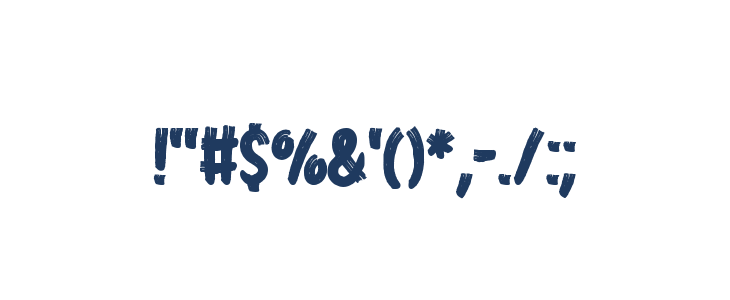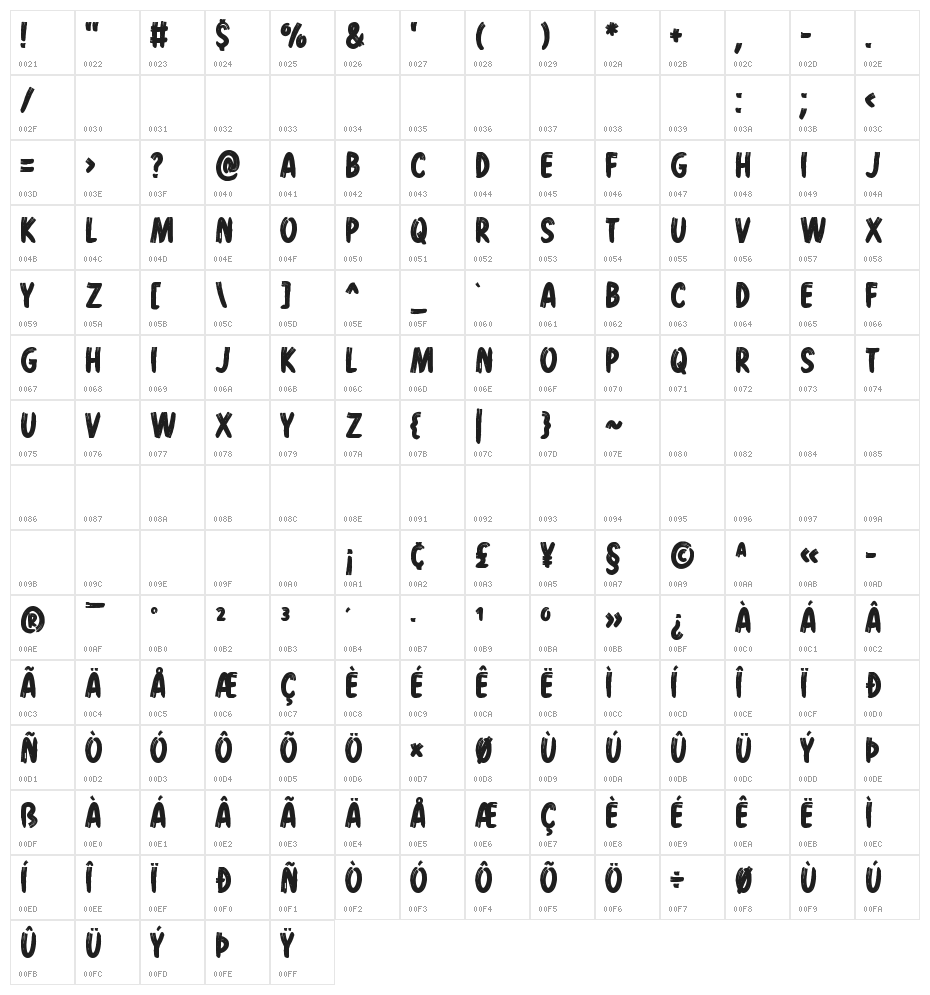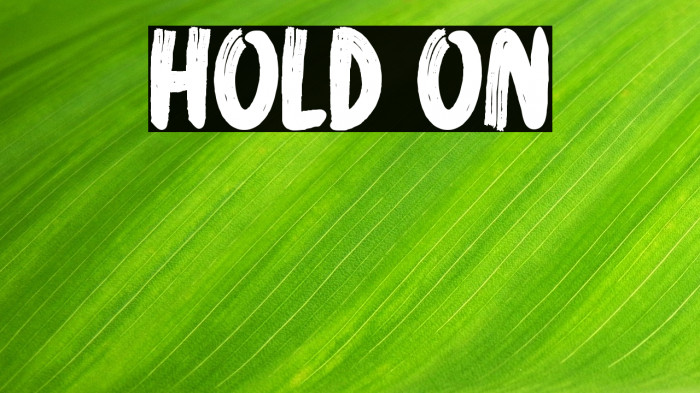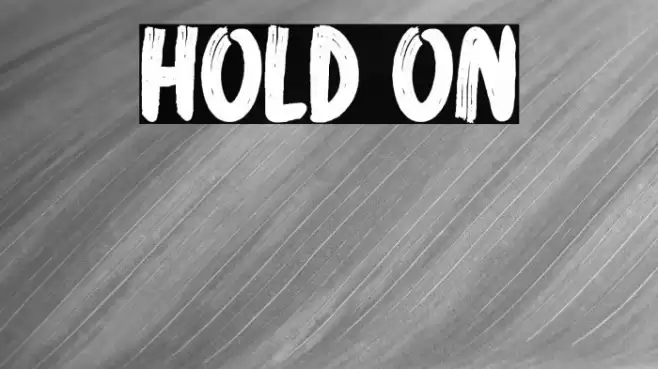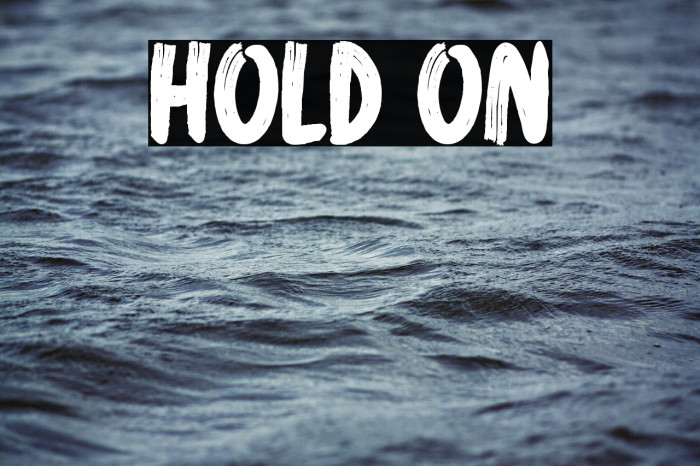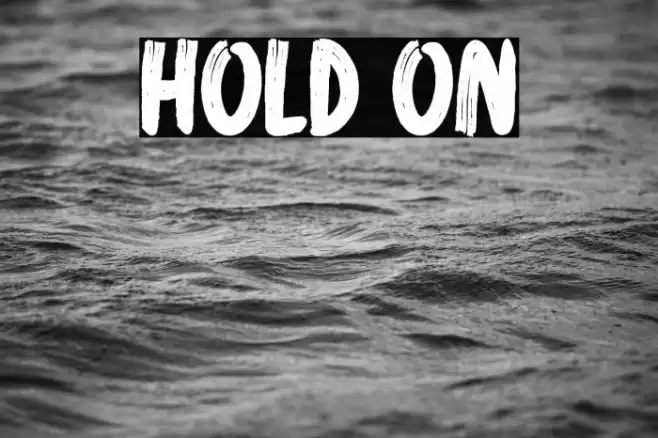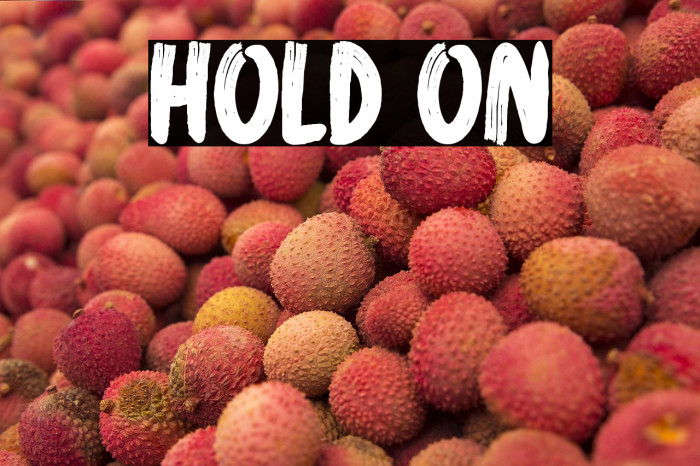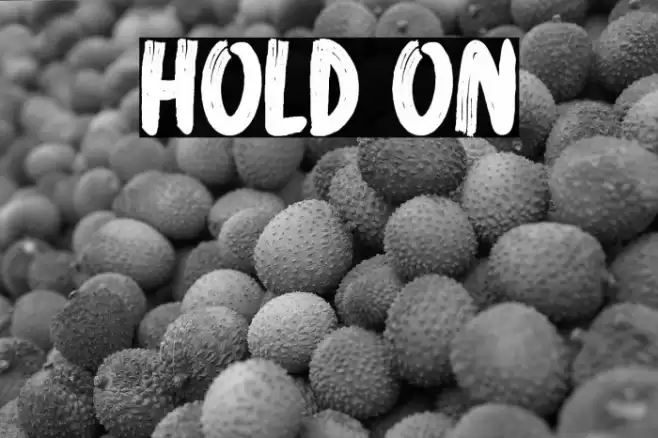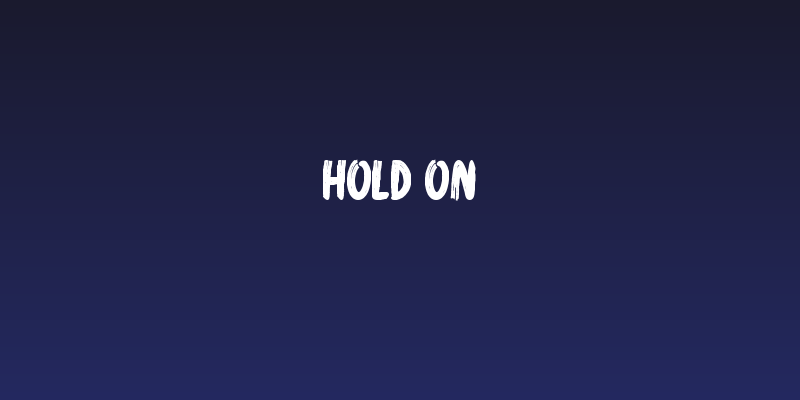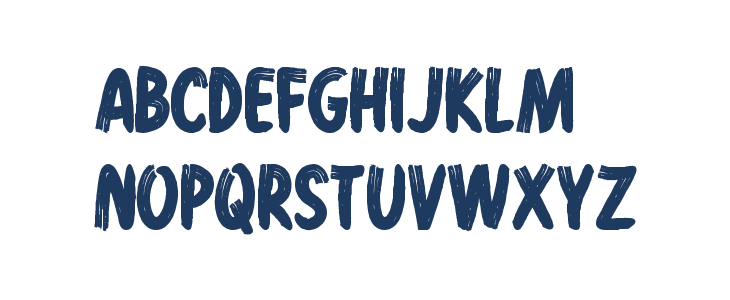
Hold On Font
Hold On Description
This font features a bold, brush-stroke style that exudes energy and dynamism. The characters are crafted with a rough, hand-painted appearance, giving it a raw and artistic feel. Each letter is uniquely textured, with varying stroke thicknesses that add depth and character. The uppercase letters are prominent and assertive, while the lowercase letters maintain the same boldness, ensuring consistency across text. The numbers and special characters follow the same design ethos, making them stand out with their expressive forms. This font is ideal for projects that require a strong visual impact, such as posters, headlines, or branding materials.